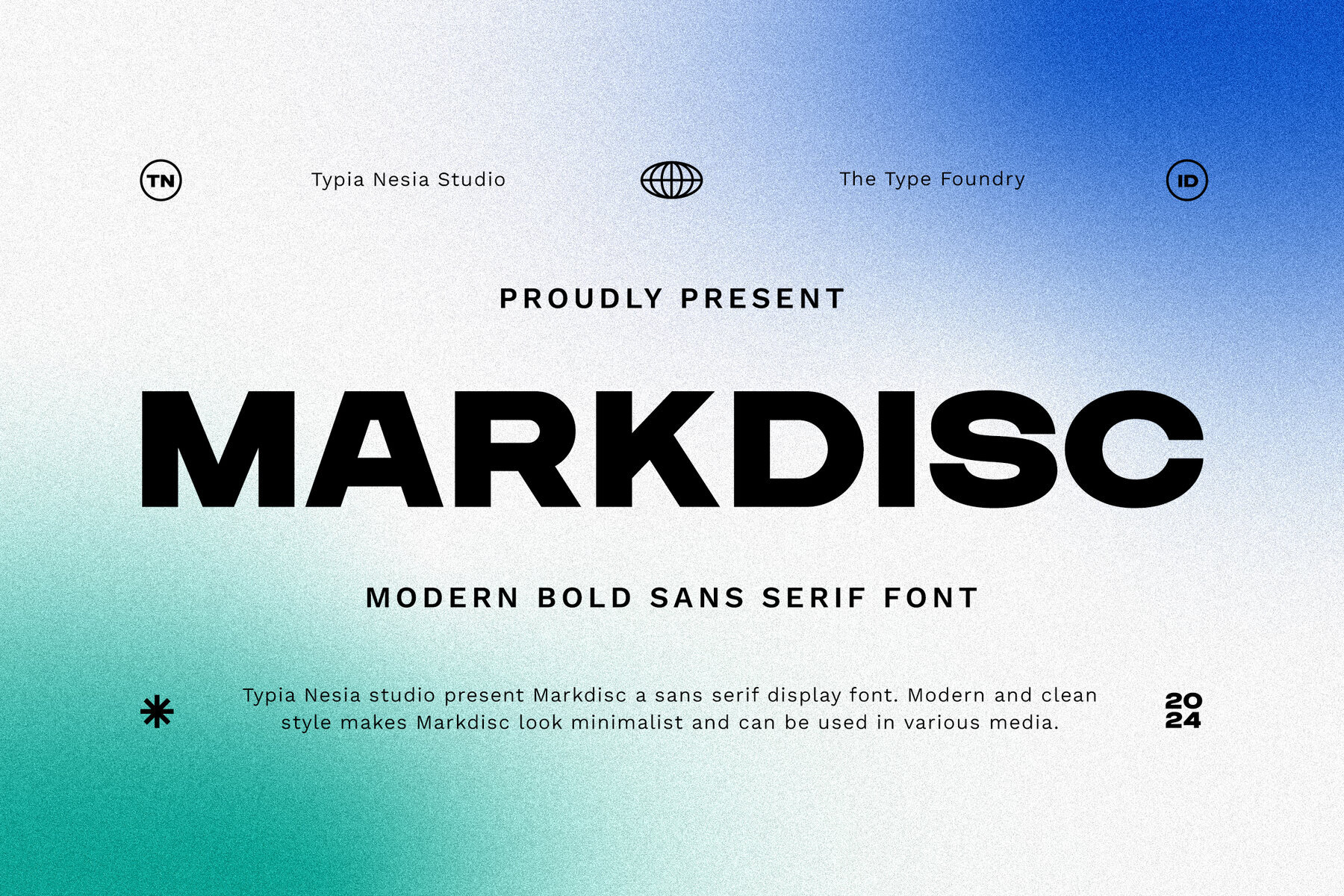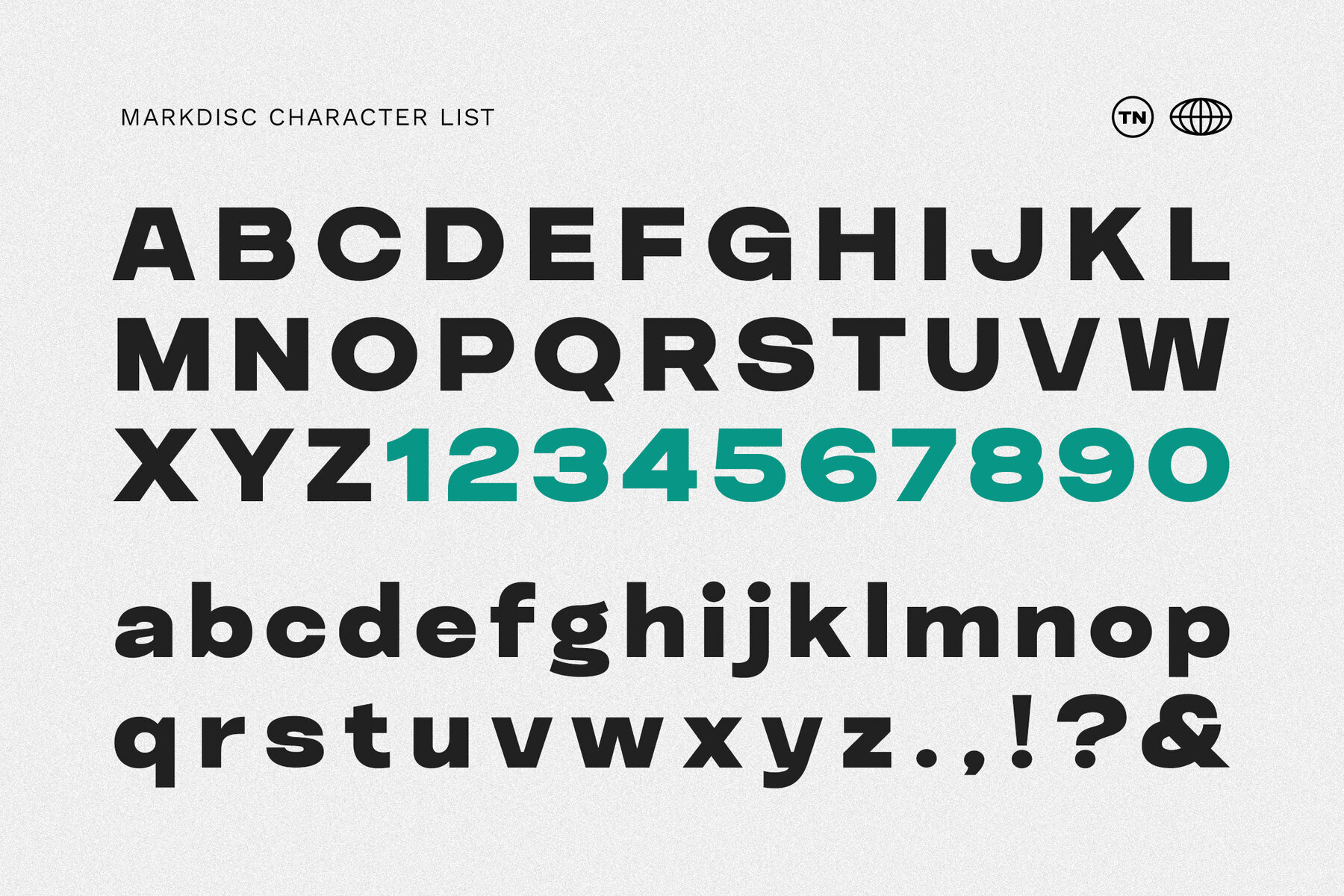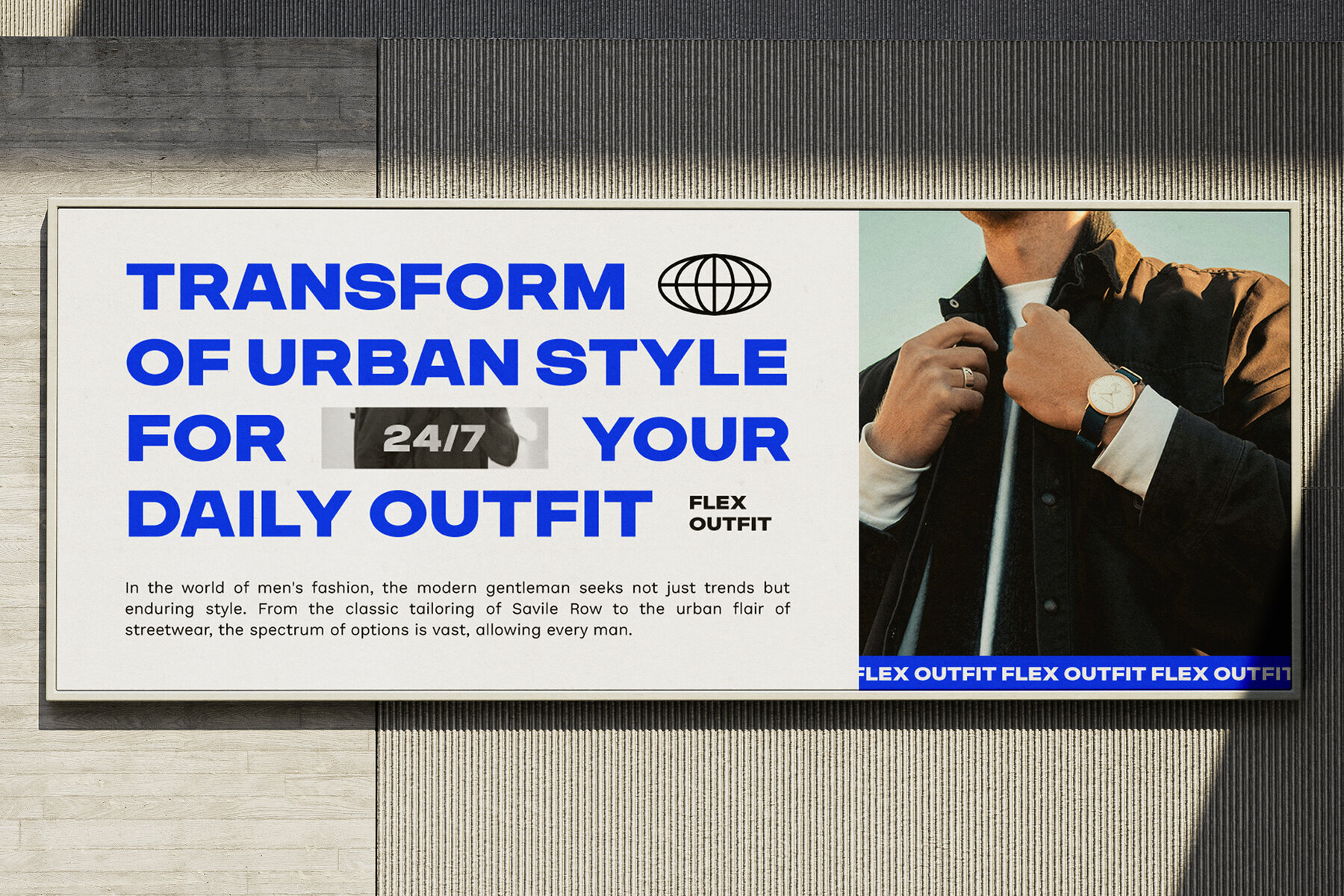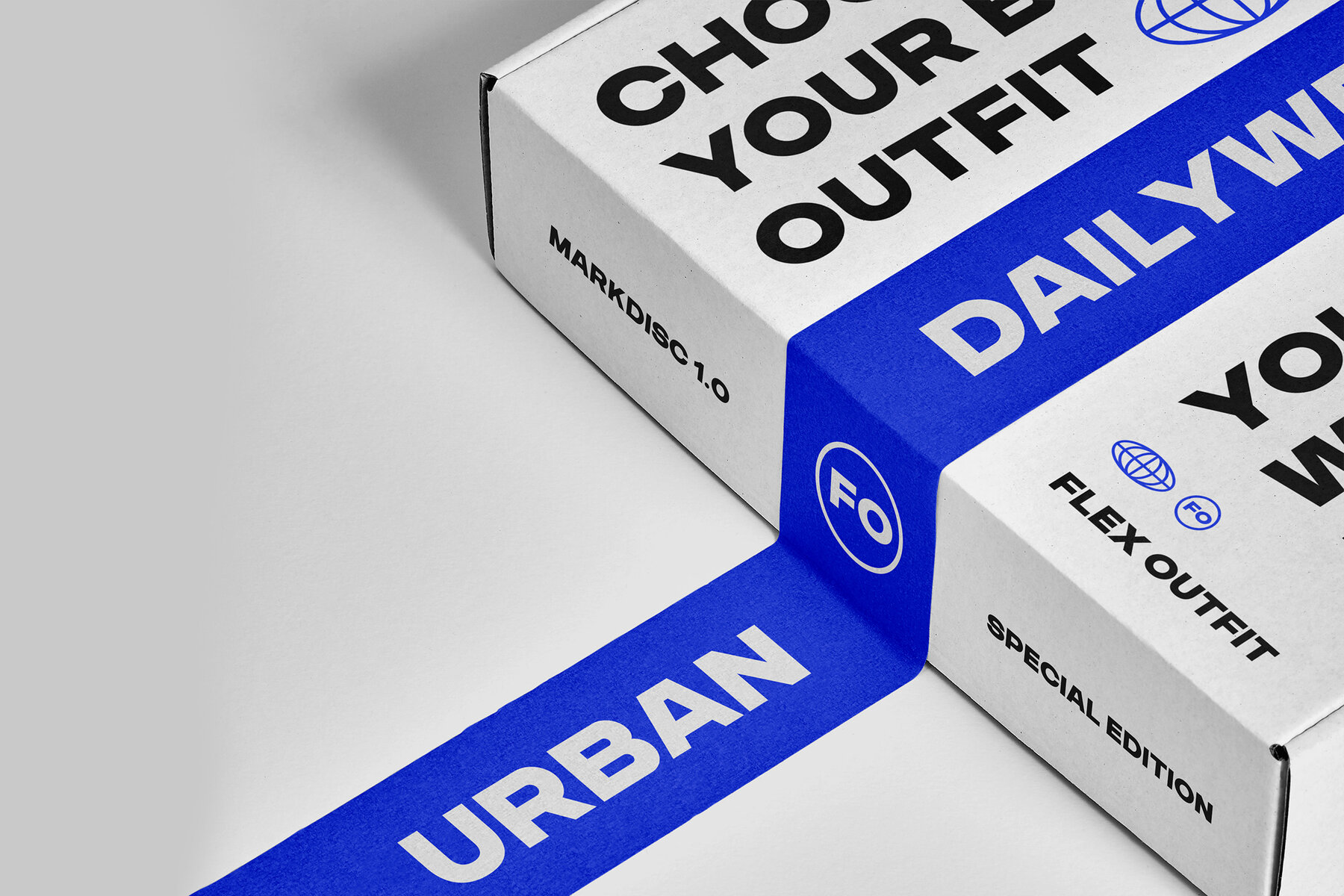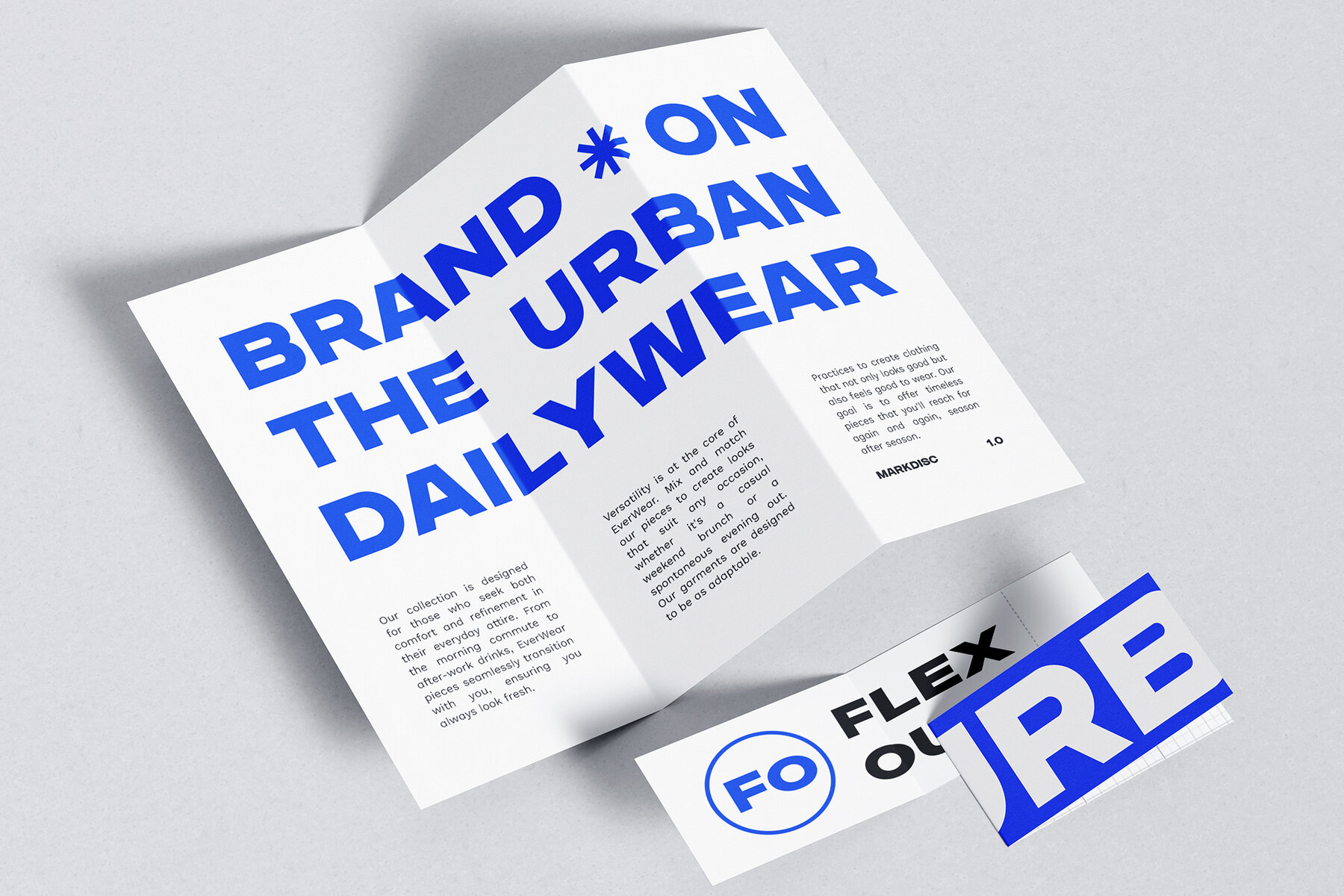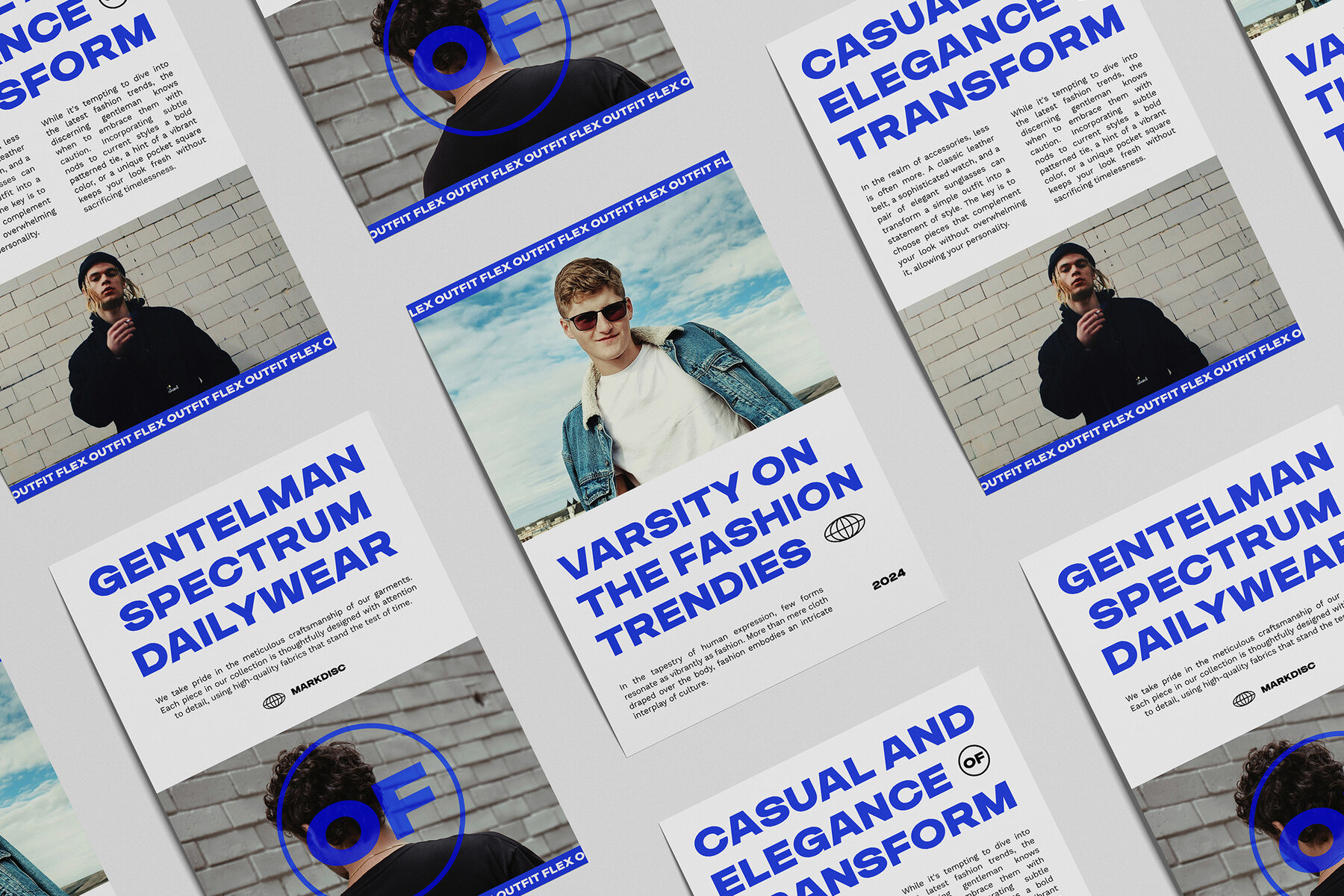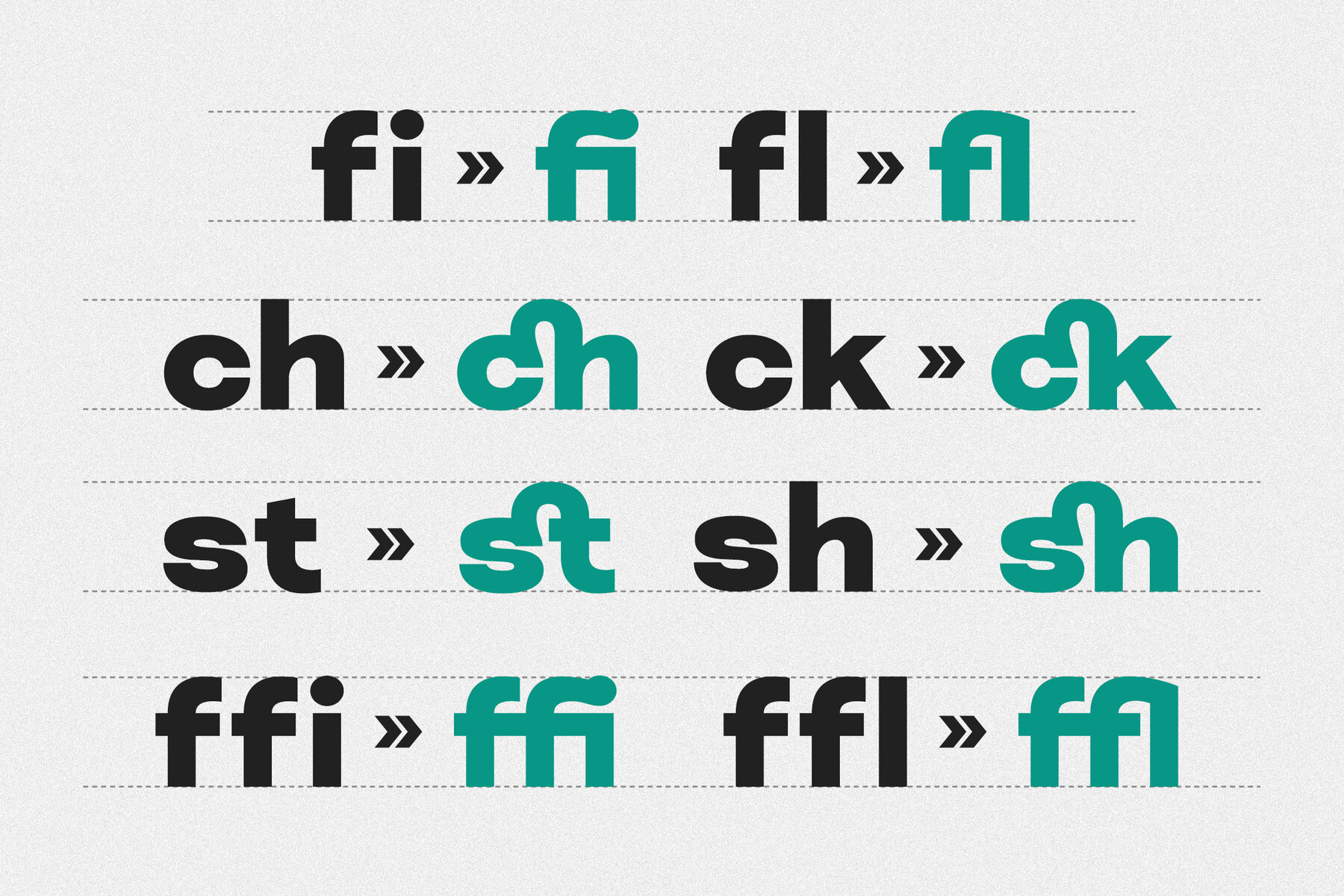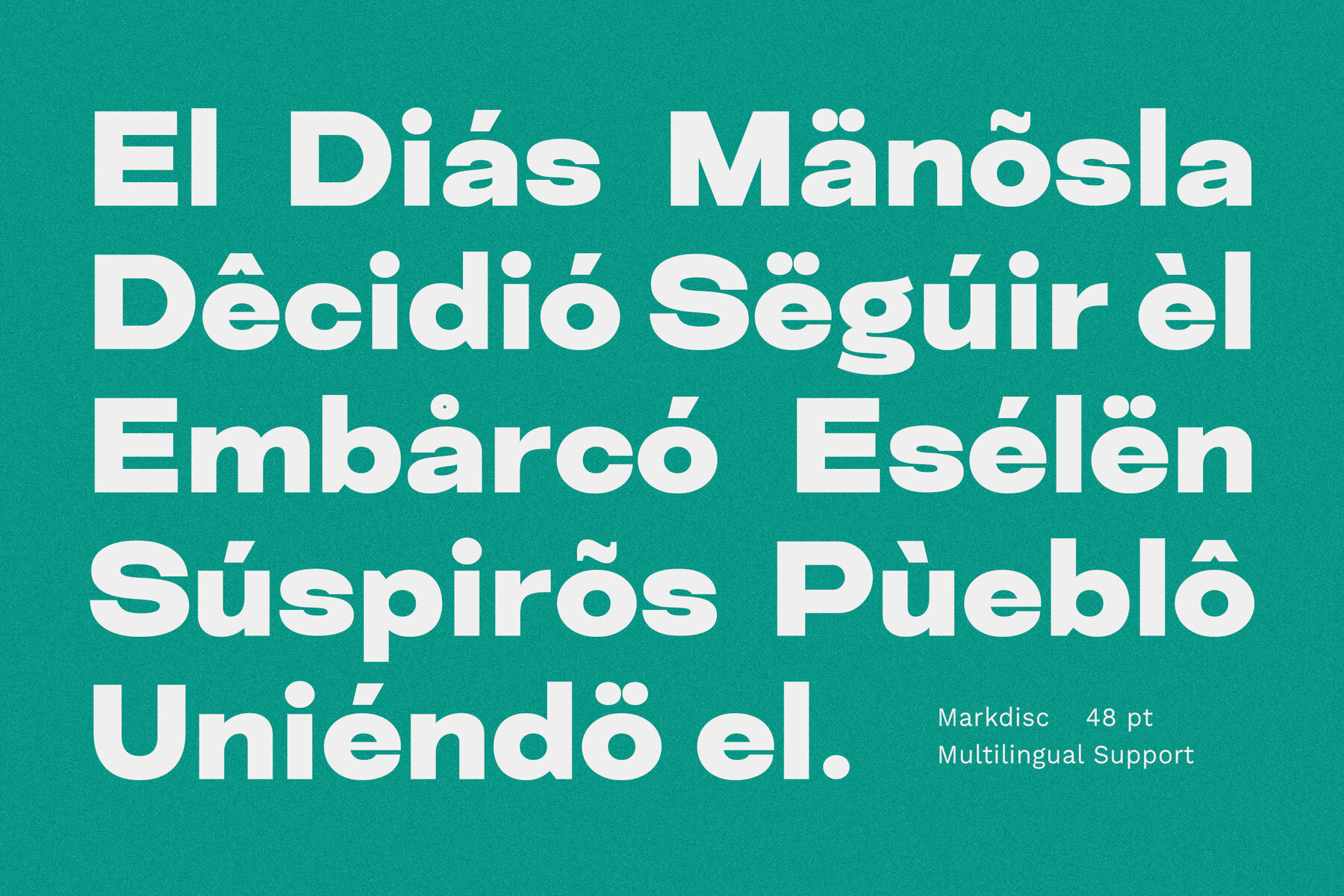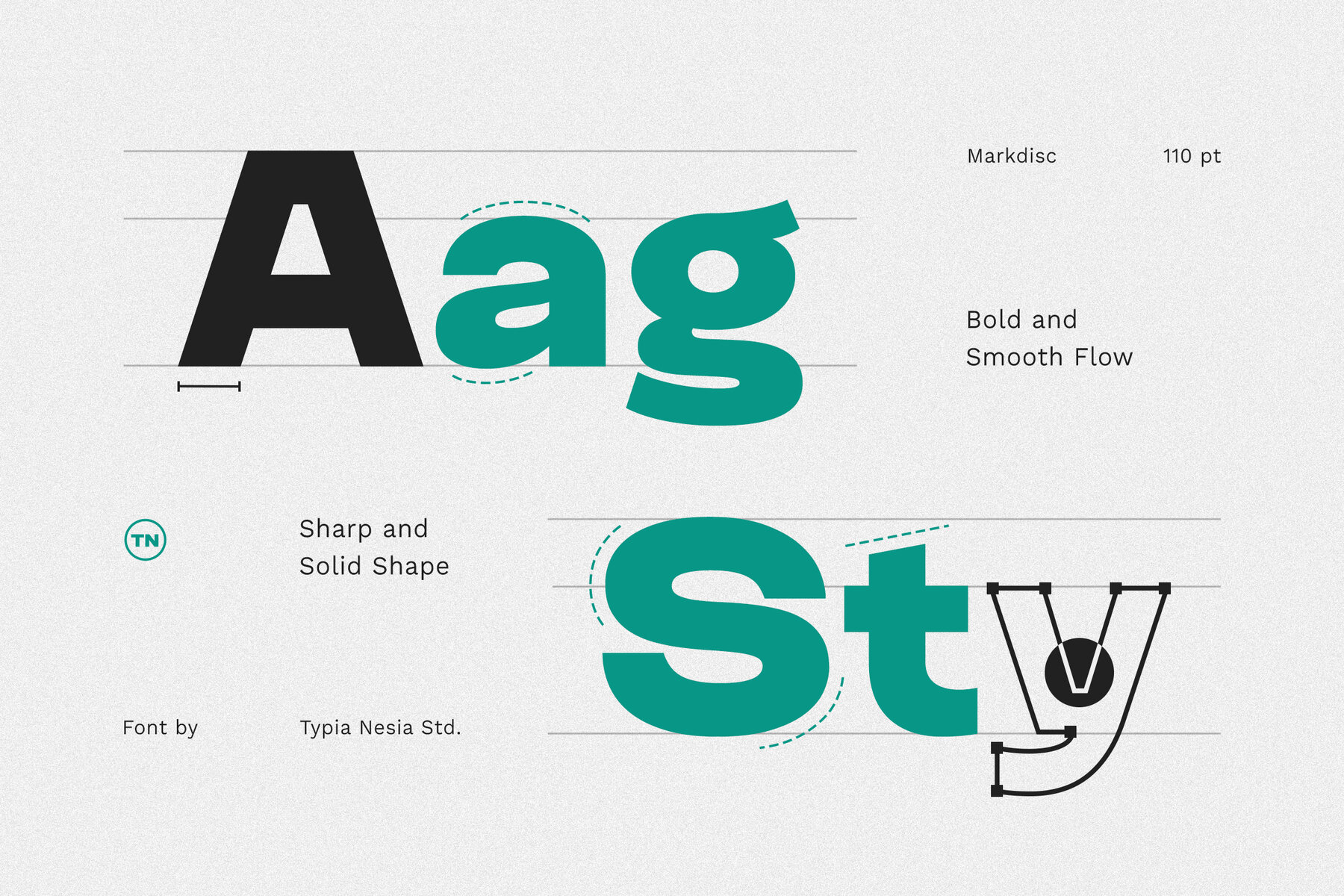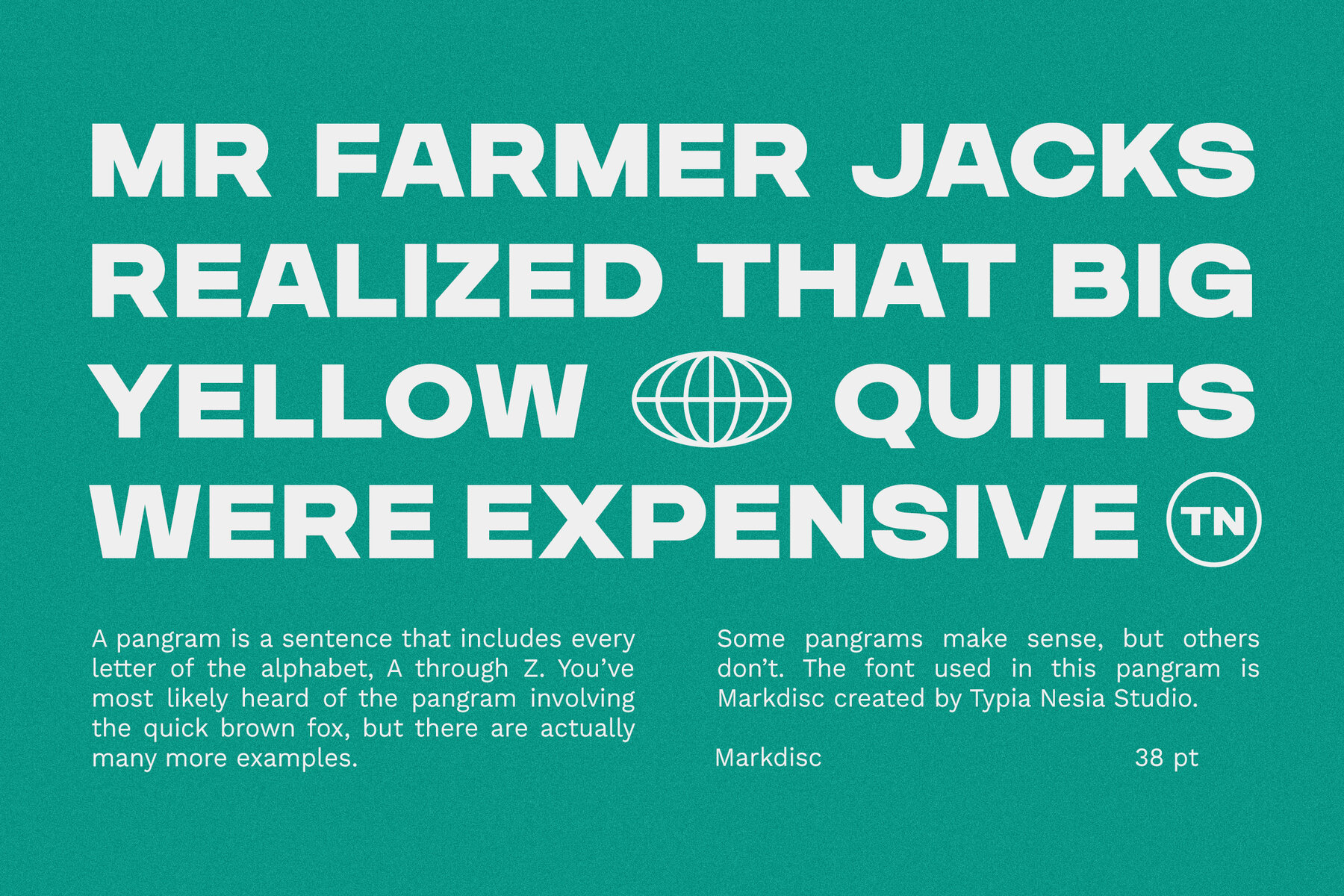
Markdisc Font
Markdisc is a modern bold sans serif font designed with a strong and confident aesthetic. Its clean lines and prominent strokes make it ideal for delivering a contemporary and professional impression. This versatile typeface suits various design tasks, including branding, logo creation, product packaging, website layouts, digital and print advertising, social media visuals, corporate presentations, magazine layouts, event signage, posters, menu designs, branded merchandise, and app interfaces. Whether you're crafting a bold headline or a sleek corporate design, Markdisc provides the robust character needed to make a significant impact.
Featuring ligatures and alternates, the font offers enhanced fluidity and diversity in its characters, making it adaptable for different creative scenarios. It includes comprehensive support for uppercase and lowercase letters, punctuation marks, and numerals, ensuring flexibility and creative freedom in your projects. Multilingual support expands its accessibility, making it suitable for various languages and regions. Designed with a strong grasp of modern typography and contemporary design principles, Markdisc meets the demands of today's creative projects with style and precision.